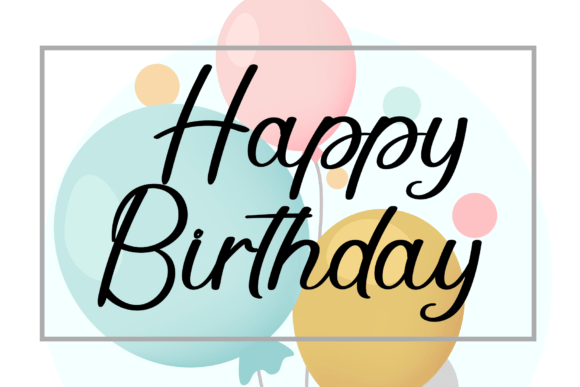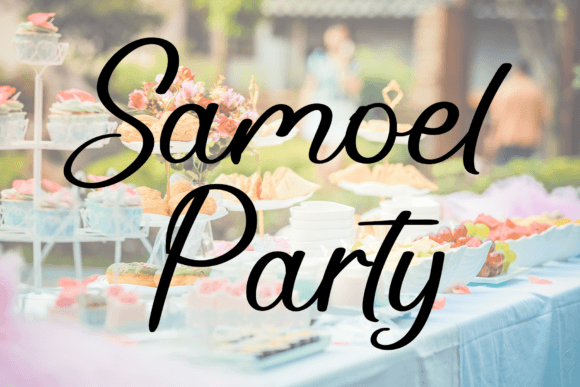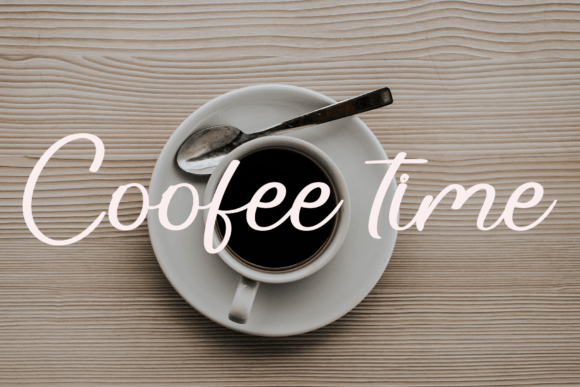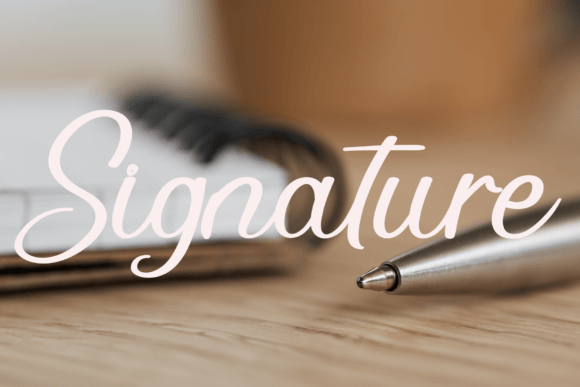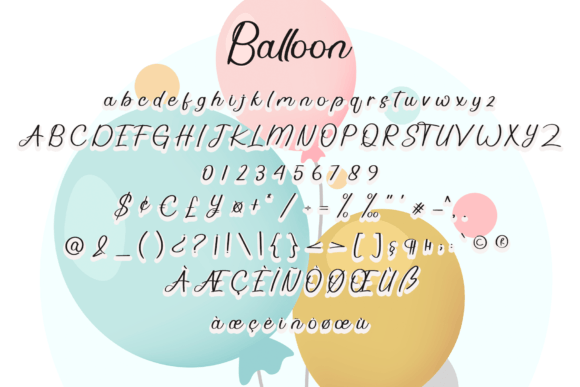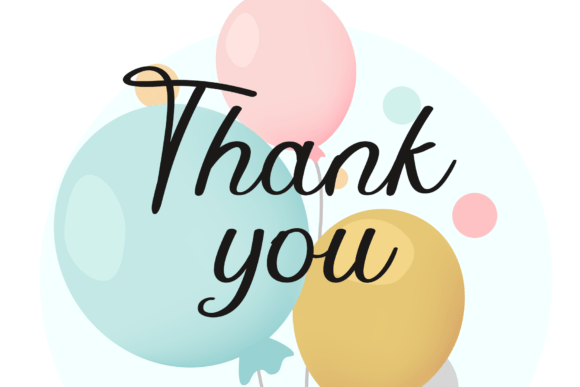
Have you ever stared at a blank canvas, feeling stuck and unsure of how to bring your creative vision to life? The blank page can be daunting, but sometimes all it takes is a single spark to set the creative wheels turning. For me, it’s the thrill of discovering a new font that can elevate a design from ordinary to extraordinary.
Enter the Balloon Font, a simple yet charming handwritten font that’s perfect for adding a natural, effortless feel to your next project. Whether you’re designing a birthday card, a wedding invitation, or a bold headline, the Balloon Font is sure to bring a smile to your face and a touch of whimsy to your design.
As a designer, you know that the right font can make all the difference in capturing your audience’s attention and conveying your message. That’s why the Balloon Font is a valuable addition to any designer’s toolkit – it’s versatile, easy to use, and guaranteed to add a personal touch to your work.
Key Features of Balloon Font
- Unique Characteristics: Balloon Font features a distinctive, rounded shape with a soft, airy feel, making it perfect for creating a playful and whimsical atmosphere in designs.
- Weight and Style Options: The font comes in a range of weights and styles, including bold, italic, and condensed options, allowing designers to add depth and variety to their designs.
Designer Review: Balloon Font
When I first saw Balloon Font, I thought it was going to be a typical, overused font with a bunch of swirly details. But, as it turns out, it’s not that bad. In fact, there are some aspects of it that I genuinely like ✨.
- Unique aesthetic: Balloon Font does have a certain charm to it, with its bubble-like shapes and irregular lines.
- Playful feel: It’s definitely a font that can add a touch of whimsy to any design, making it perfect for creative projects or children’s materials.
However, there are some limitations to Balloon Font that might make it less suitable for certain projects ⚠️:
- Difficulty in readability: The swirly details and irregular lines can make it hard to read, especially at smaller font sizes.
- Limited versatility: Balloon Font is best suited for playful, creative projects. It might not be the best choice for more formal or professional designs.
Overall, I’d say that Balloon Font is a decent choice for the right project, but it’s not without its limitations. With careful consideration and use, it can add a fun and playful touch to your designs.
The Balloon Font is perfect for creating playful and whimsical designs, such as:
- Children’s party invitations
- Comic book illustrations
- Food labels and packaging
Remember to experiment with different font sizes, colors, and arrangements to get the most out of this fun and versatile font.